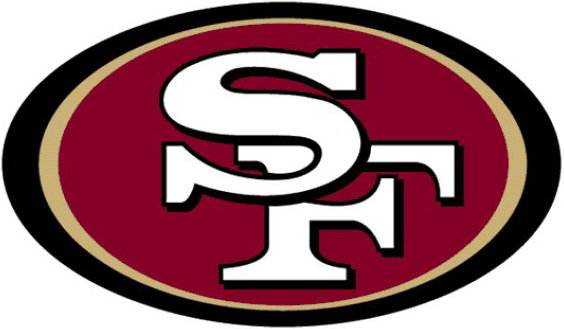
San francisco 49ers font dafont. The typeface is a variant of clarendon extra bold and the other logo would be quentin caps and you can find it on this page. 5 matching requests on the forum. In fancy retro.
The best characteristic of this typeface is that it shows astounding readability even in the widescreen or on any hoarding displays. Faithful is the official brand font of the san francisco 49ers based on the iconic sf monogram introduced in the early 1960s and a continuation of the 49ers logo type introduced in mid to late 1980s. 49ers faithful font faithful is the official brand font of the san francisco 49ers based on the iconic sf monogram introduced in the early 1960s and a continuation of the 49ers logo type introduced in mid to late 1980s.
49ers font family the quentin caps font was created by mr. I designed letterforms and developed the art into a working font with 133 glyphs including stencil numerals and stylistic alternates. Size quentin caps by dieter steffmann.
The typeface is a variant of clarendon extra bold and the other logo would be quentin caps and you can find it on this page. In fancy. And it has available only in a single regular style along with 63 number of characters.
What font does san francisco 49ers use. The closest font you can get for the san francisco 49ers logo is clarendon std bold font. Submit a font tools.